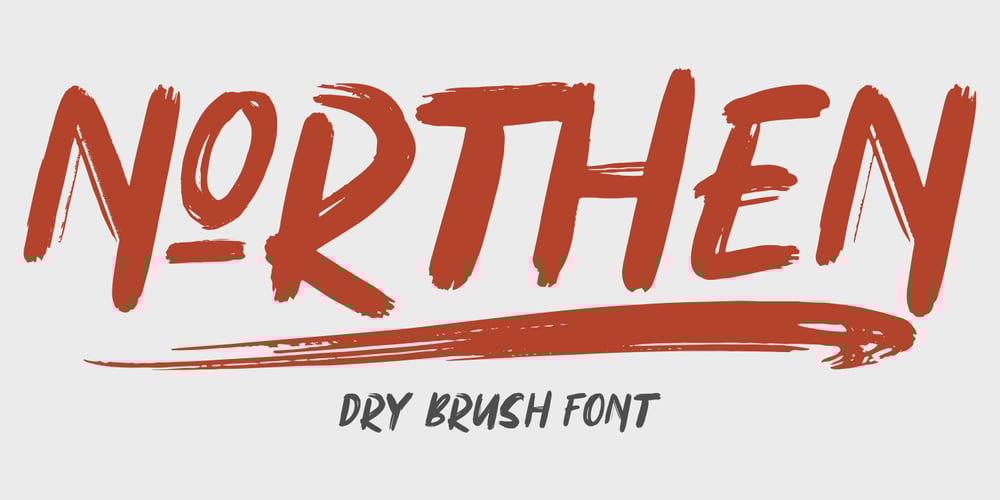
Northen Font Family was designed by Risman Ginarwan and published by Garisman Studio. Northen contains 2 styles and family package options. Northen combines attractive curves with a fresh urban edge; delivering a stylish script which is guaranteed to add an eye-catching appeal to your logo designs, brand imagery, handwritten quotes, product packaging, merchandise & social media posts ADVANTAGES: – Simple installation – Work for PC and MAC – Multilingual Support – EXTRA SWASH – Detailed dry brush I hope you enjoy this font. If you have questions, don’t hesitate to give me a message ๐ Thank You! – Garisman Studio